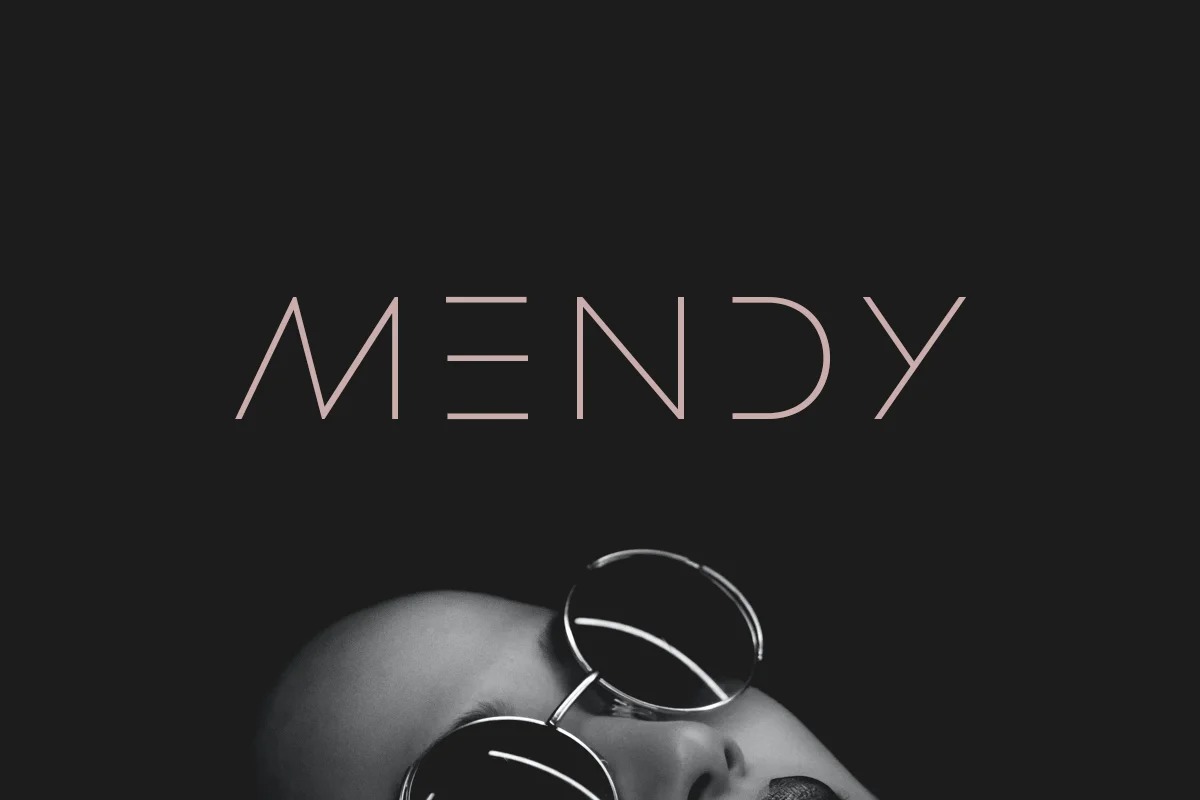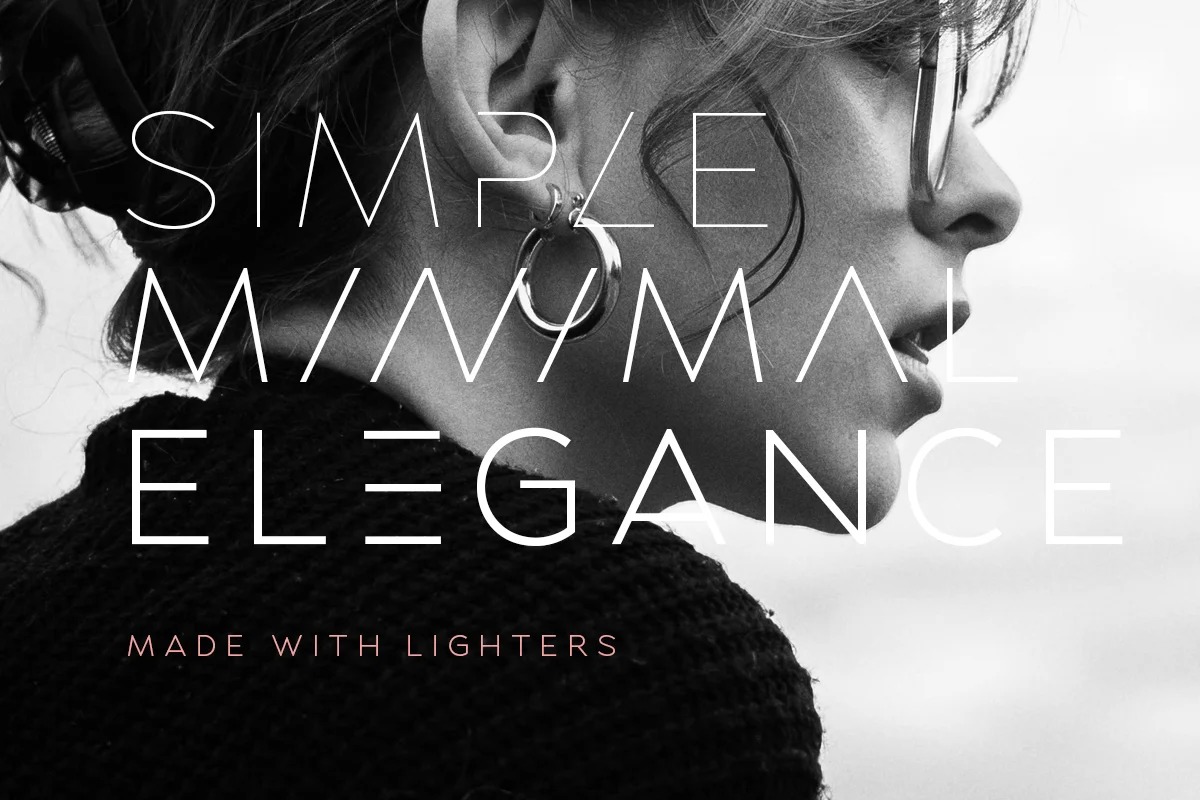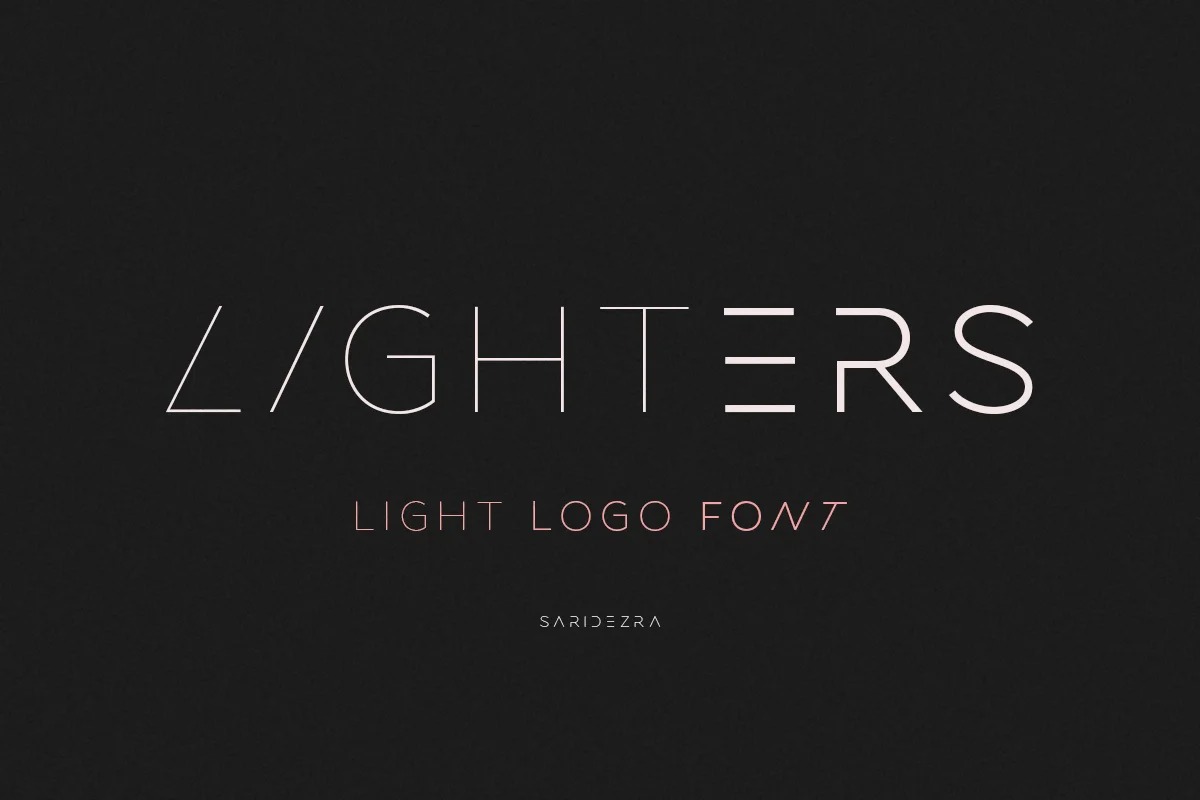
Lighters Font
Lighters Display Font
This is a minimalist elegant sans serif font manufactured by Saridezra. It’s a very versatile font that works great in large and small sizes. With three weight styles that you can use together will make your design more cool . You can use this font for any purpose, especially to make logotype and poster design. You can mix and match the uppercase and lowercase to make your logo more advanced. This font also comes with number, symbol, and multilingual support!